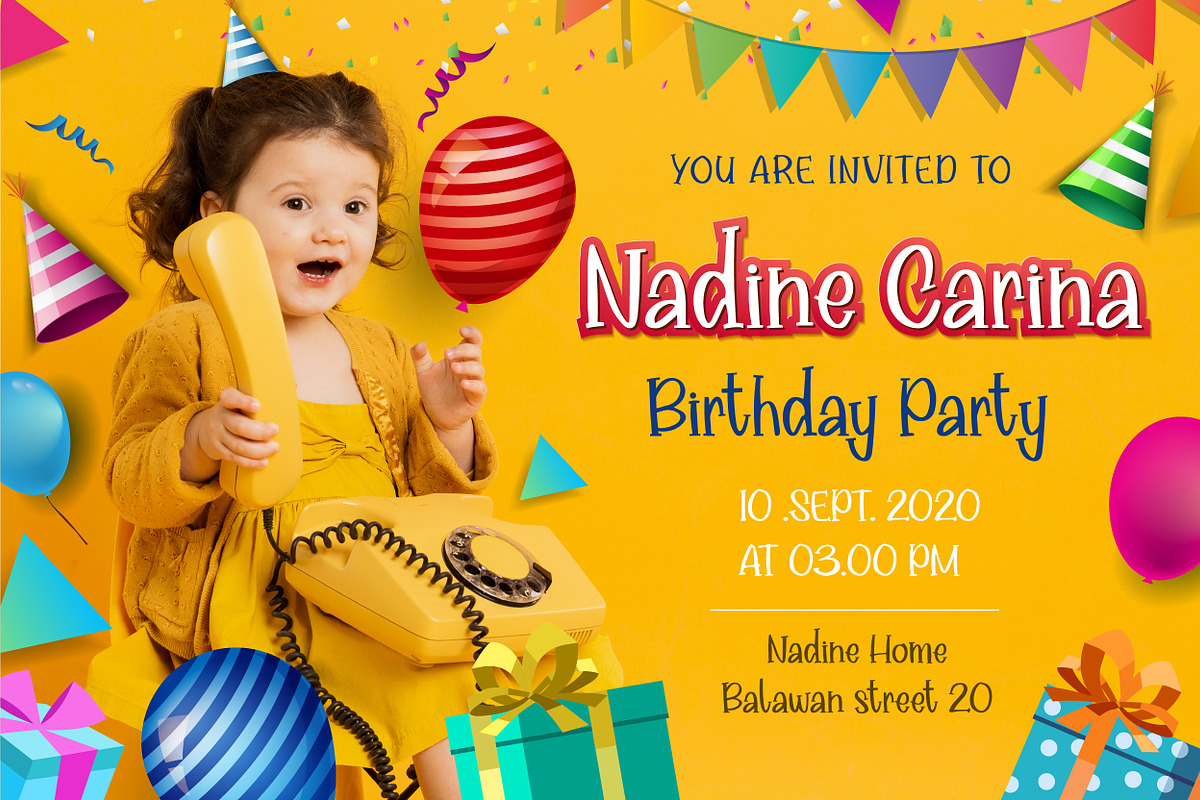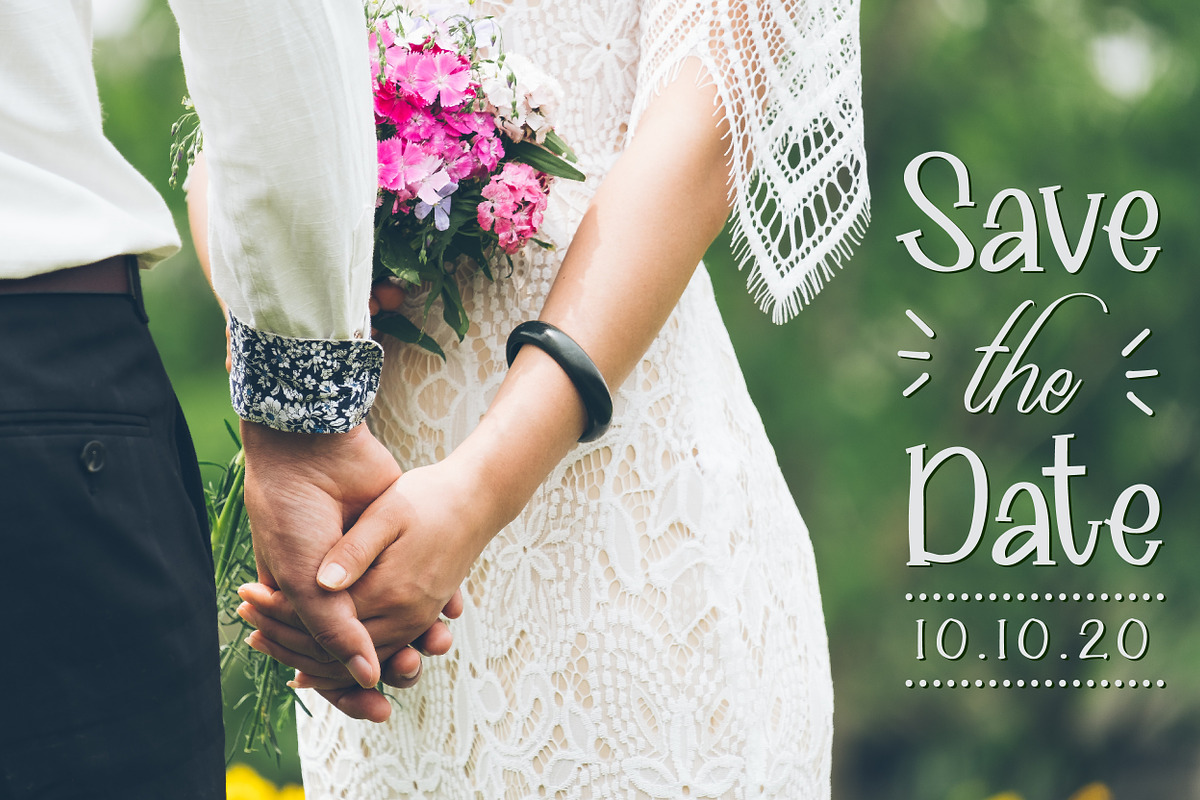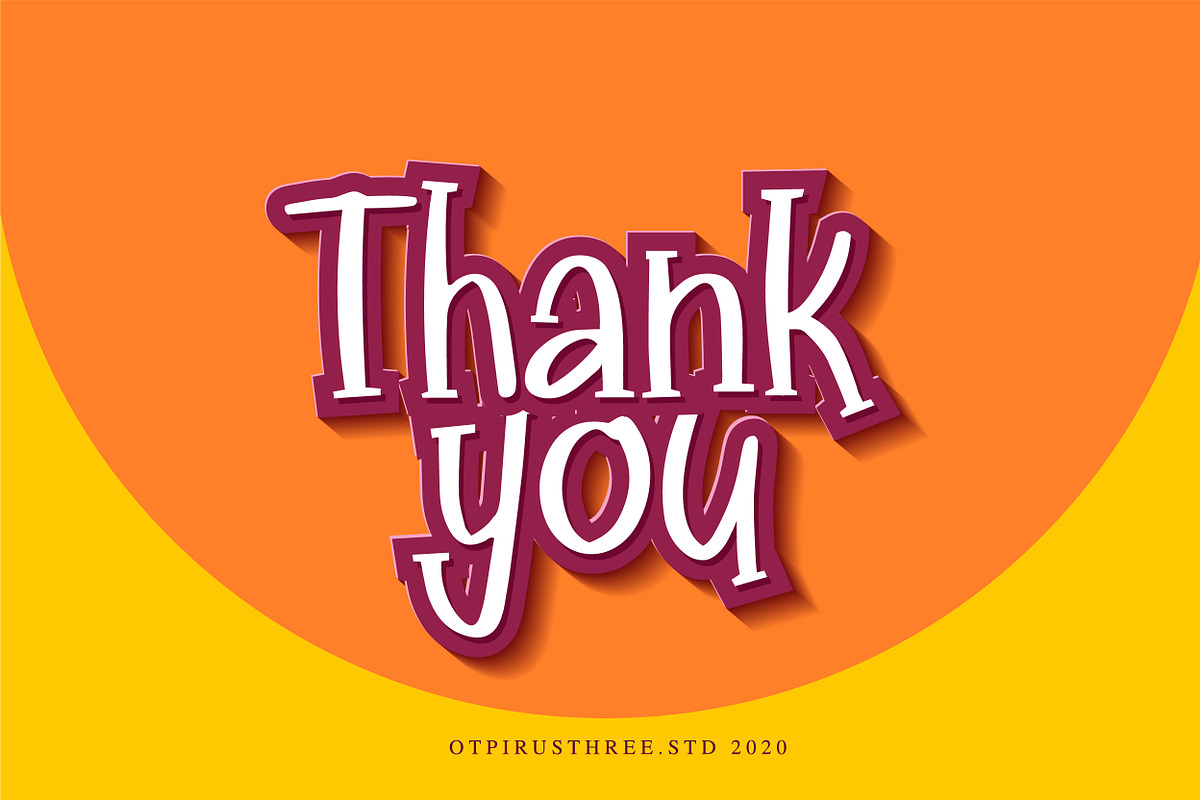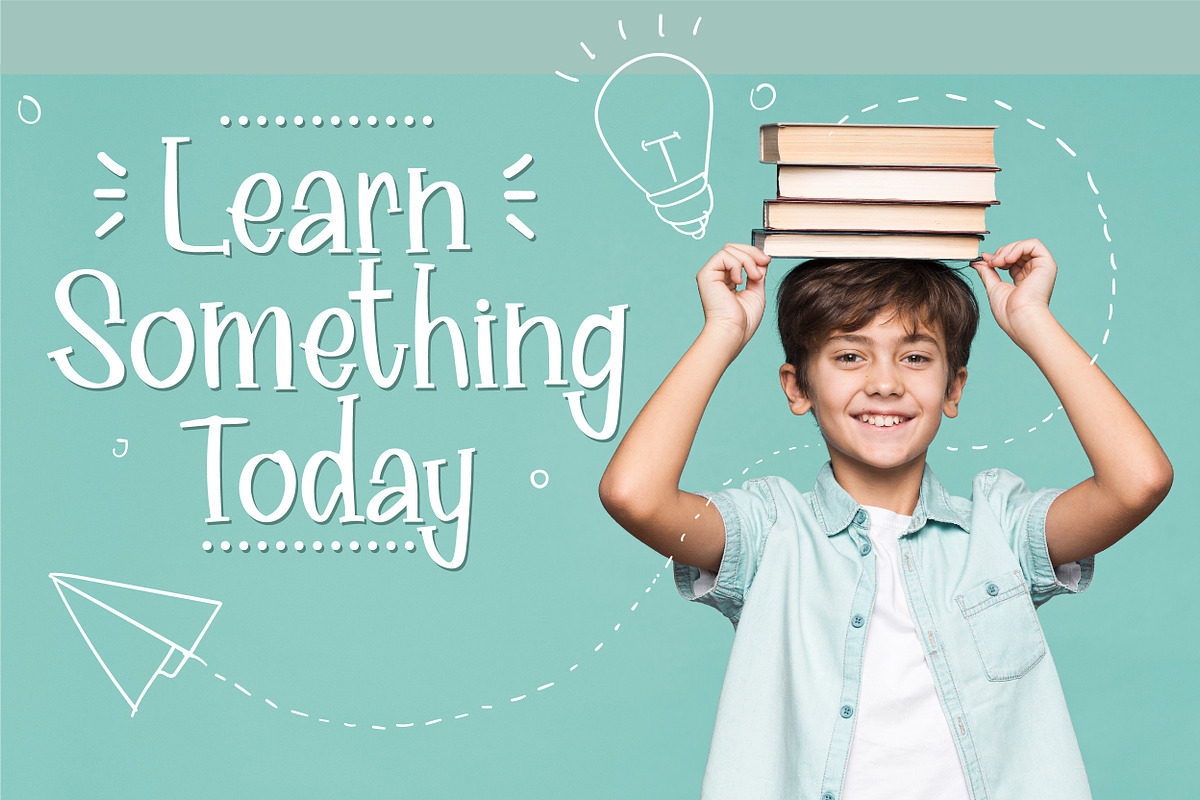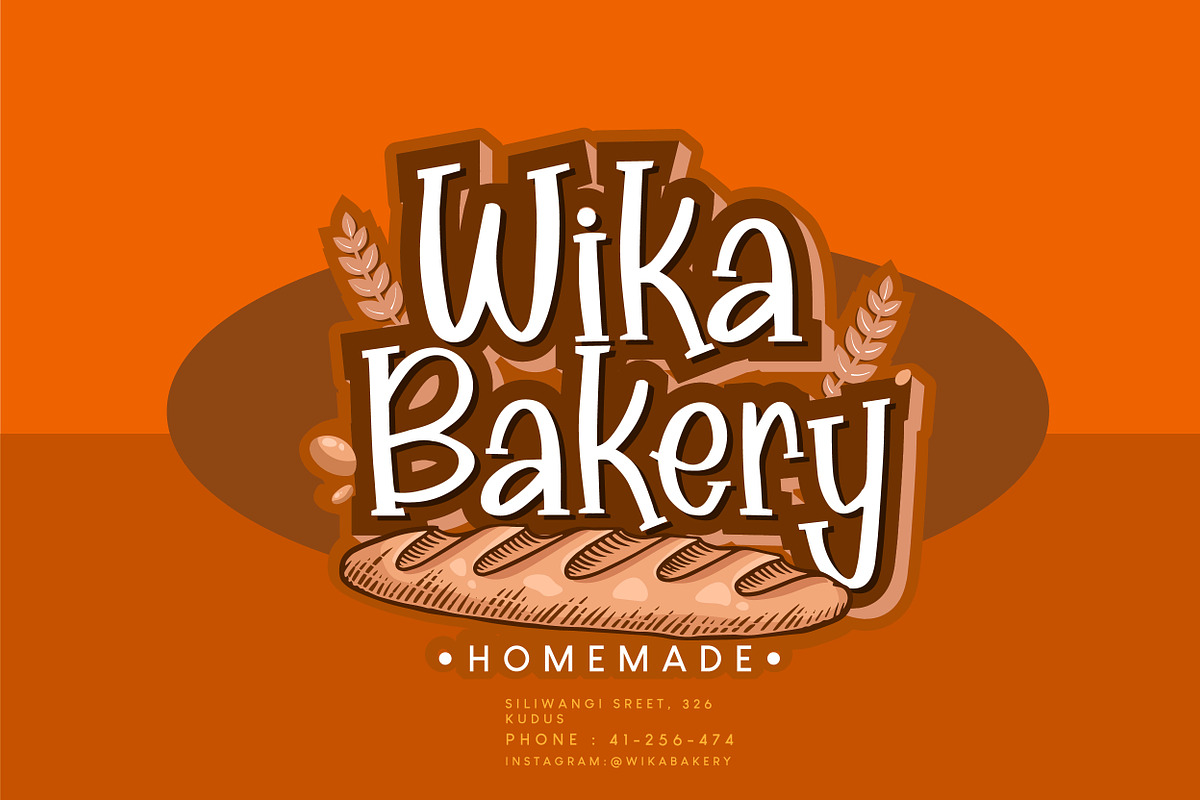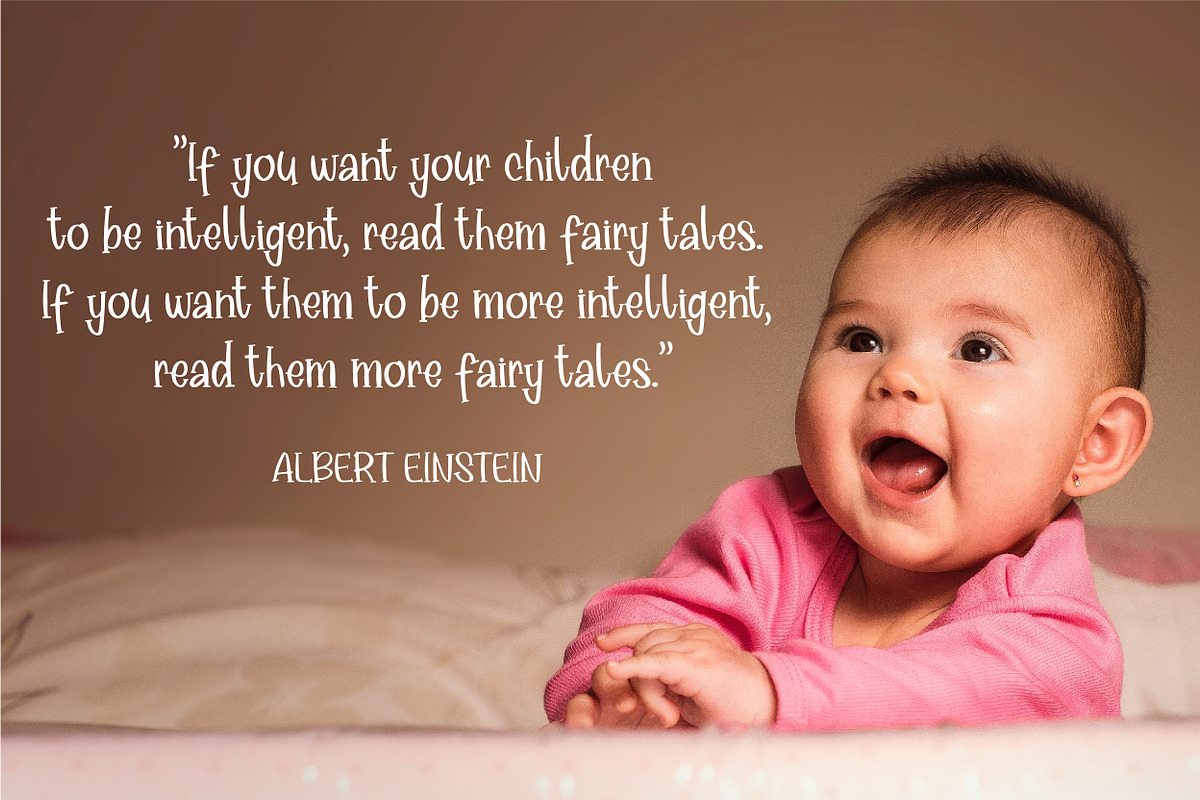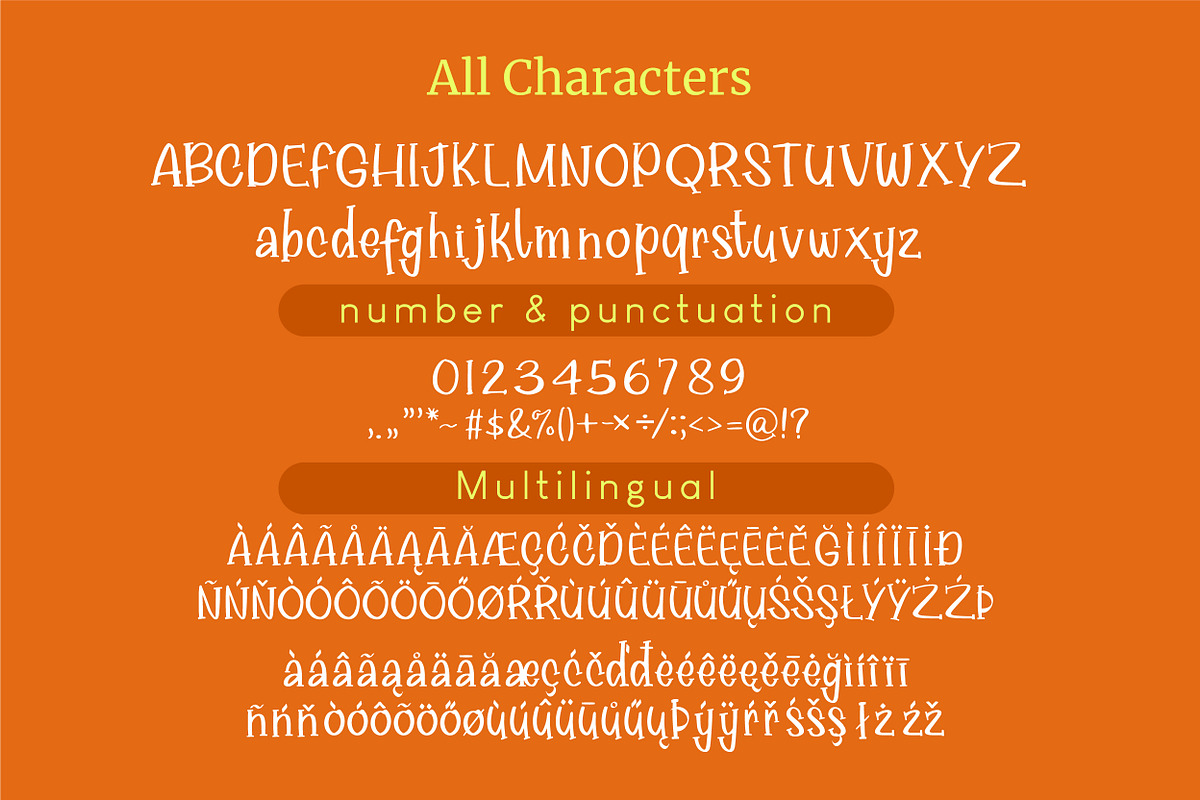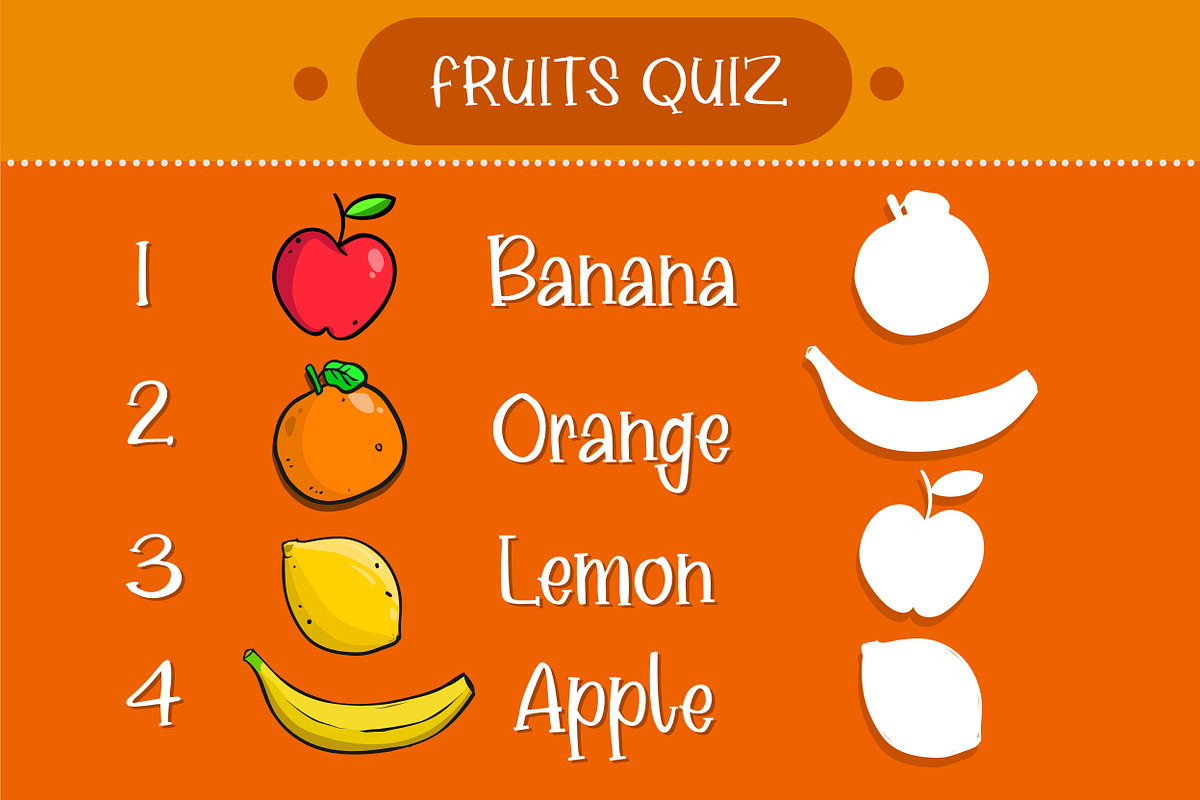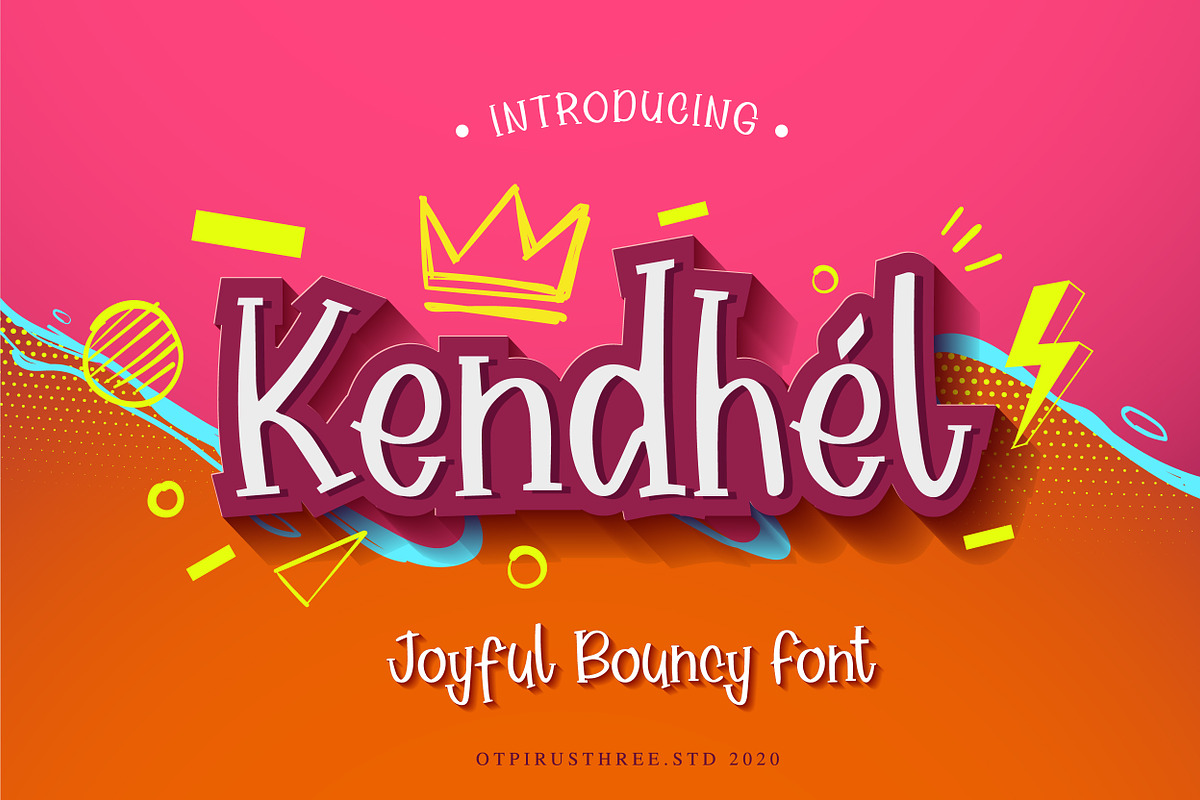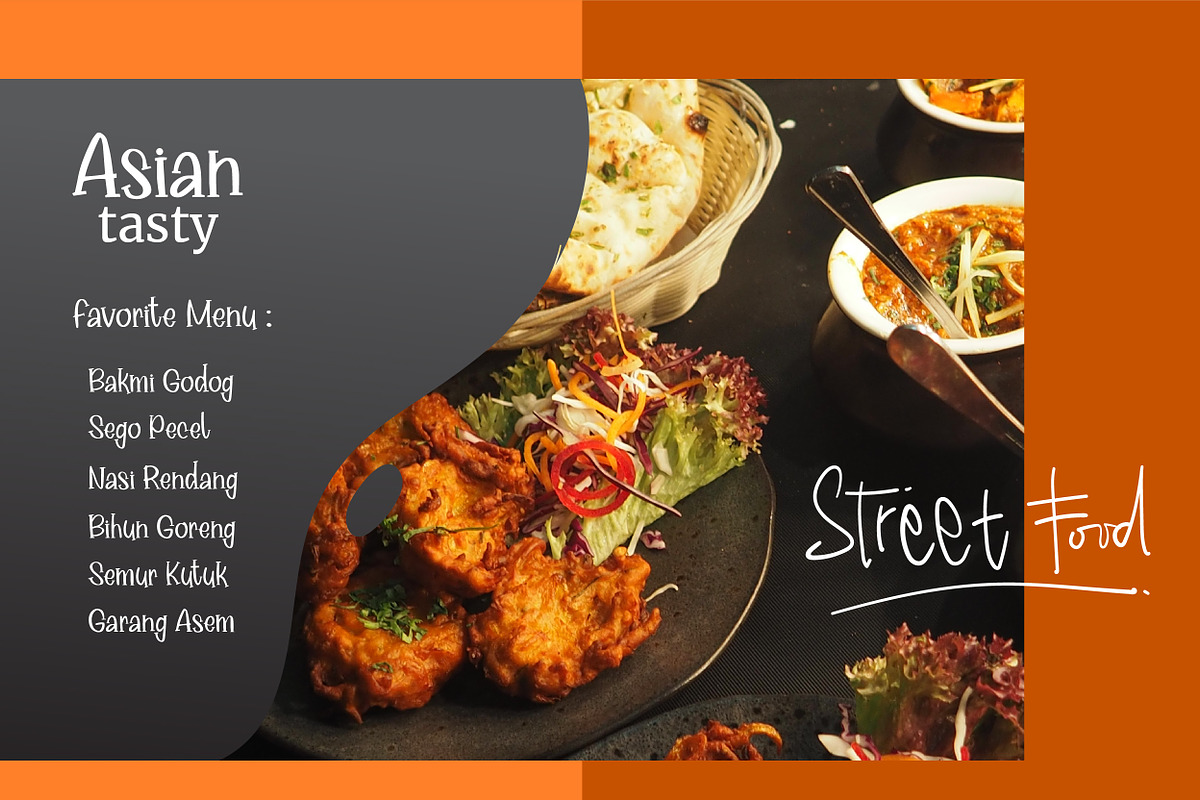
Kendhel Joyful and Bouncy Font
Introducing of our new product the name is Kendhel, this is a bouncy and friendly display font. A little bit quirky, this font looks incredibly adept on a wide variety of contexts!
- Numbers and Punctuation